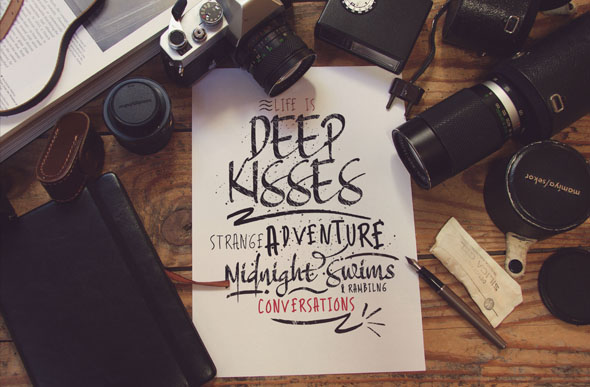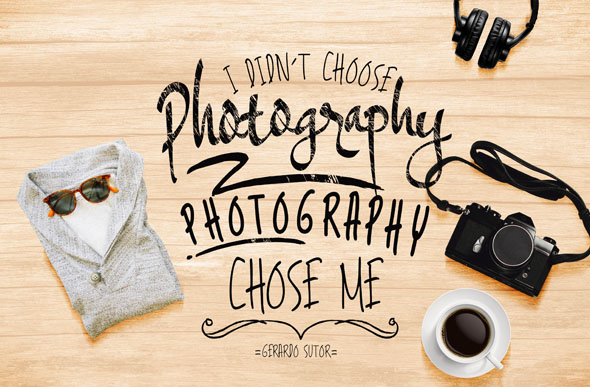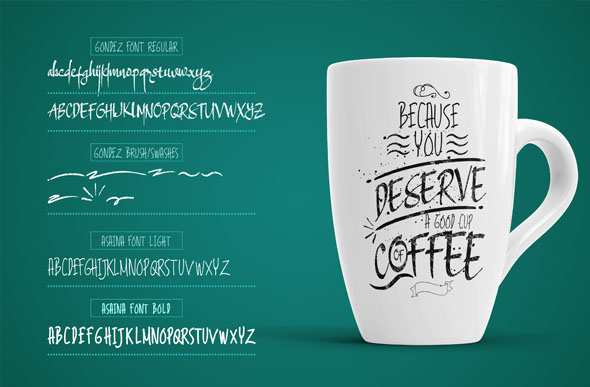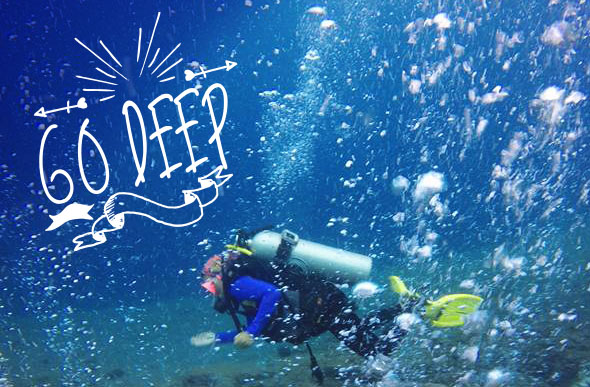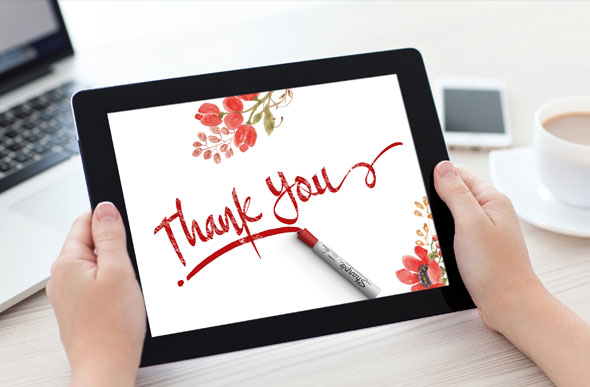
Gondes Font: A Playful Typeface for Creative Projects
Are you a designer or crafter looking for a unique and playful typeface to add a touch of personality to your projects? Look no further than Gondes Font! This versatile and fun font can be used for a wide range of applications, from headings and logos to invitations, t-shirt designs, and more.
What is Gondes Font?
Gondes Font is a modern, playful typeface designed to bring a sense of whimsy and creativity to your designs. With its unique blend of bold lines, curves, and irregular shapes, Gondes Font is sure to stand out from the crowd. Whether you’re working on a personal project or a client’s, this font is sure to add a touch of personality and flair.
Uses for Gondes Font
One of the best things about Gondes Font is its versatility. This font can be used for a wide range of applications, including:
- Headings and titles: Add a pop of personality to your headings and titles with Gondes Font’s bold, playful letters.
- Logos: Create a unique and memorable logo for your business or brand with Gondes Font.
- Invitations: Make your invitations stand out with Gondes Font’s fun and playful style.
- T-shirt designs: Create eye-catching t-shirt designs with Gondes Font’s bold, attention-grabbing letters.
- Greeting cards: Add a personal touch to your greeting cards with Gondes Font’s whimsical style.
- Posters: Create bold, eye-catching posters with Gondes Font’s large, playful letters.
- Labels: Add a touch of personality to your labels with Gondes Font’s fun and quirky style.
- Book covers: Create a unique and eye-catching book cover with Gondes Font’s bold, attention-grabbing letters.
- Brochures: Add a touch of personality to your brochures with Gondes Font’s playful style.
Why Choose Gondes Font?
So why choose Gondes Font for your next project? Here are just a few reasons:
- Unique and playful style: Gondes Font’s unique blend of bold lines, curves, and irregular shapes makes it stand out from the crowd.
- Versatile: This font can be used for a wide range of applications, from headings and logos to invitations and t-shirt designs.
- Easy to read: Despite its playful style, Gondes Font is easy to read, making it perfect for use in a variety of contexts.
- High-quality design: Gondes Font is designed with high-quality, crisp lines that will look great in any context.
Tips for Using Gondes Font
Here are a few tips for getting the most out of Gondes Font:
- Use it sparingly: While Gondes Font is playful and fun, it can be overwhelming if used too much. Use it sparingly to add a touch of personality to your designs.
- Experiment with colors: Gondes Font looks great in a variety of colors, so don’t be afraid to experiment and find the perfect hue for your design.
- Pair it with other fonts: Gondes Font pairs well with a variety of other fonts, so don’t be afraid to get creative and try out different combinations.
| Font Name | Gondes Font |
| Author | Mild Studio |
In conclusion, Gondes Font is a playful and versatile typeface that can add a touch of personality to any design project. With its unique blend of bold lines, curves, and irregular shapes, Gondes Font is sure to stand out from the crowd. Whether you’re a designer or crafter, this font is sure to be a valuable addition to your toolkit. So why not give Gondes Font a try today and see the difference it can make in your designs?